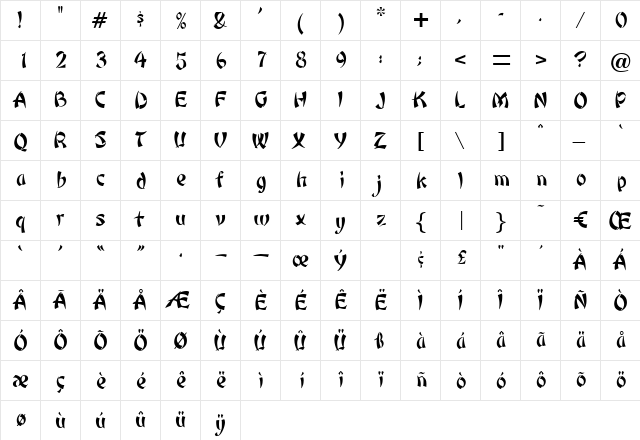
Taipeh Regular
Design Context for Taipeh Typeface
Taipeh is a composed and adaptable typeface that performs quietly and consistently across a wide range of design contexts.